Triennale Design Museum 5 Grafica Italiana
LFT Etica ’s versatility and charm in the exhibition and catalogue at the Triennale Design Museum 5 Grafica Italiana (2012).
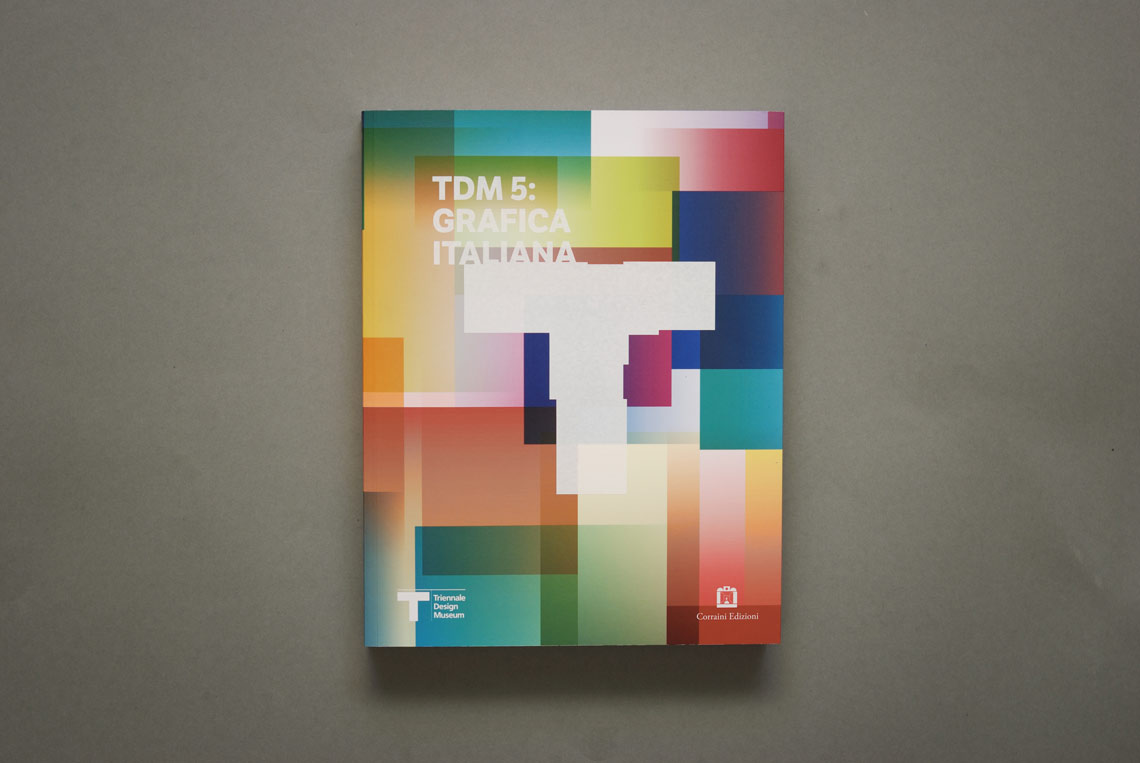
TDM5: Grafica Italiana was one of the permanent exhibitions hosted at the Milan Triennale Design Museum (2012–2013). The exhibition, envisioned by architect and designer Fabio Novembre, included 20th century Italian works from all categories of design: typefaces, books, magazines, advertising, packaging, visual identity, signs, films, and videos. James Clough wrote an insightful review of the exhibition.
The Milan-based studio Leftloft was responsible for the graphic design both of the exhibition and catalogue. The humanist sans LFT Etica was chosen for the editorial work as well as the exhibition signage. Its charm and versatility made it an inspired choice within the graphic design and a balanced choice throughout the space, allowing the works it housed to speak for themselves.